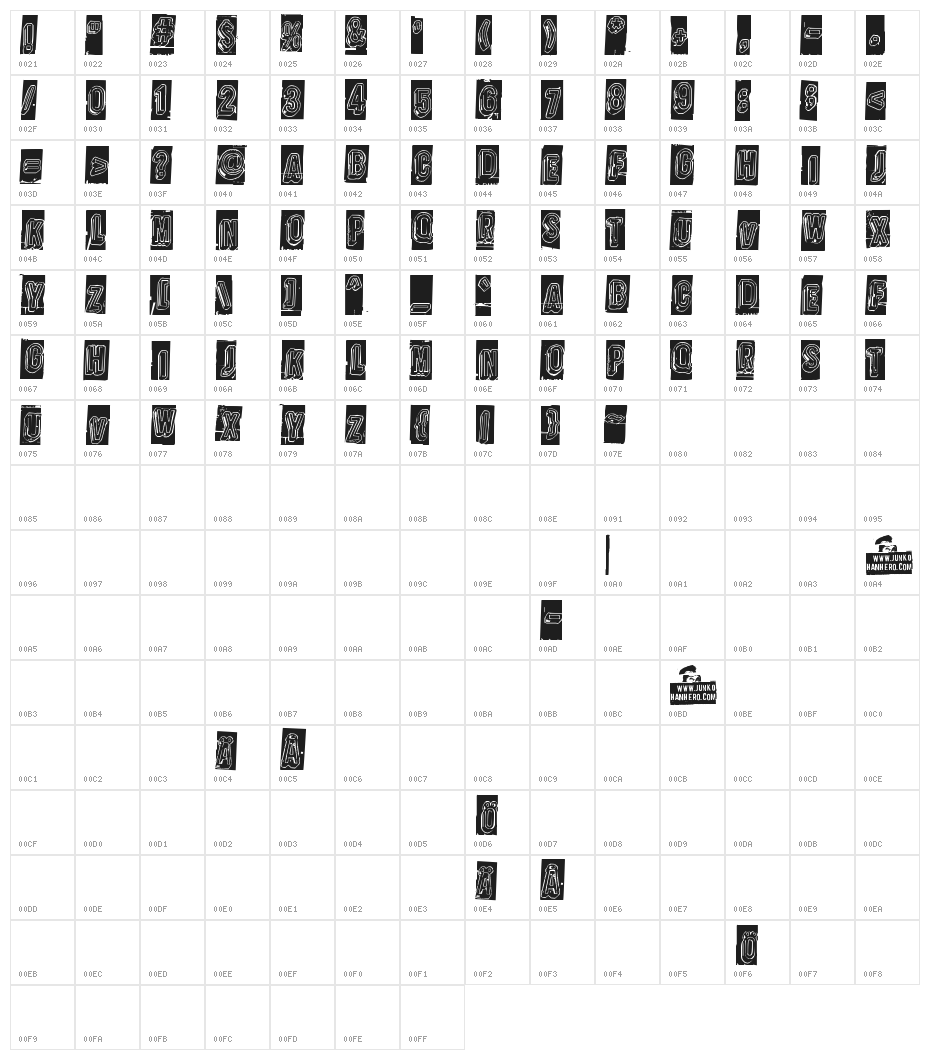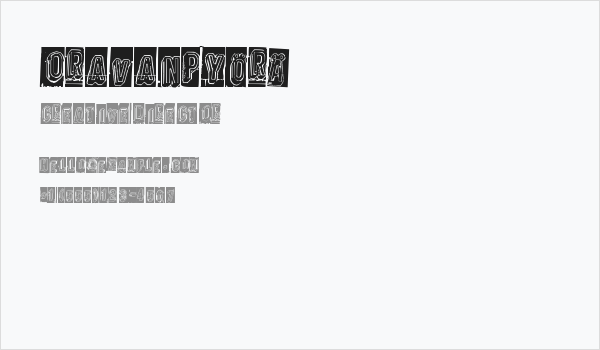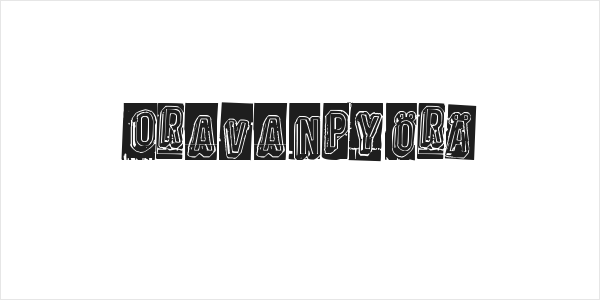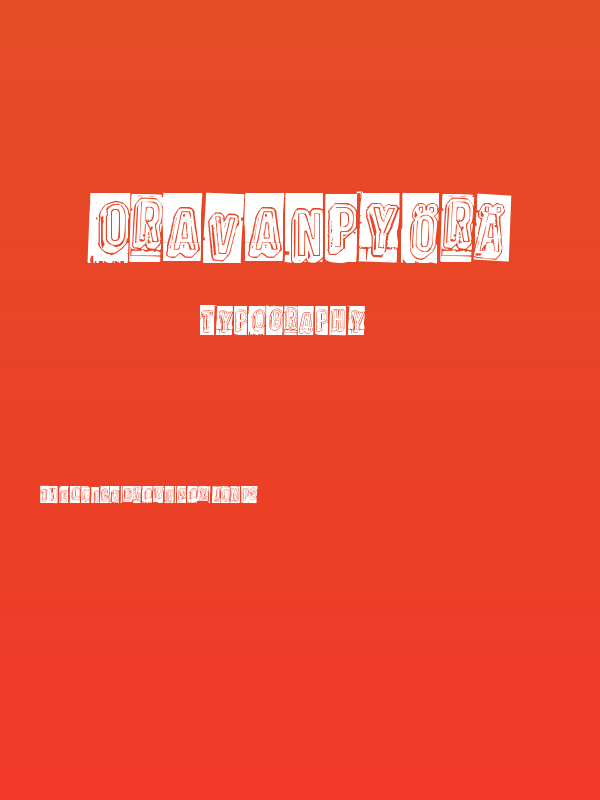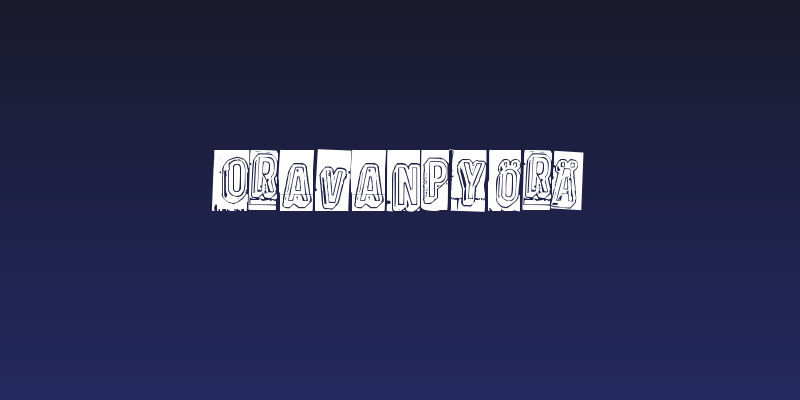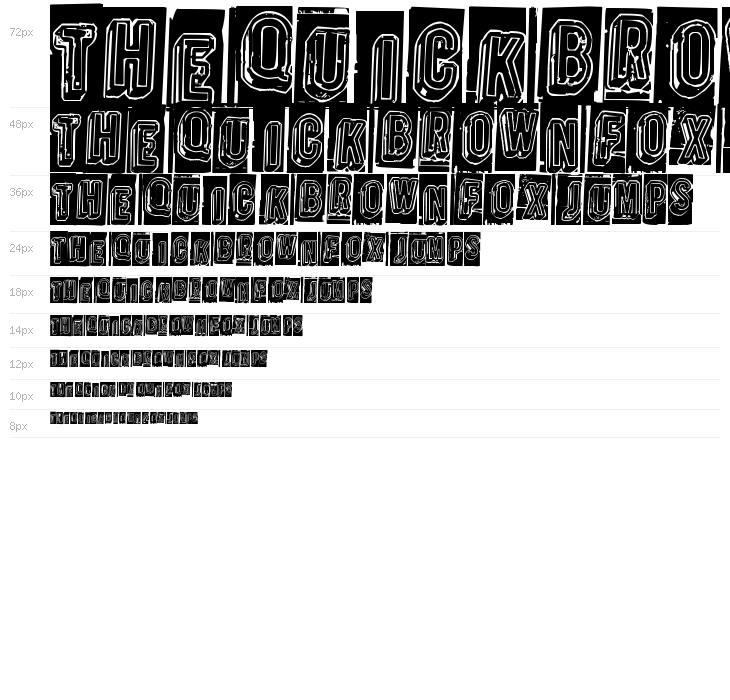
Oravanpyörä Font
Oravanpyörä Description
This font features a bold, outlined style with a slightly distressed texture, giving it a rugged and edgy appearance. The characters are uppercase and lowercase, with a consistent thickness in the strokes, creating a cohesive look. The numbers and special characters maintain the same aesthetic, ensuring uniformity across all glyphs. The font's unique style makes it stand out, ideal for projects that require a strong visual impact. Its distressed look adds a vintage or grunge feel, making it suitable for creative and artistic designs.
| Overall Style | Vintage, Grunge |
| Proposed Projects | Ideal for posters, album covers, branding, and any project needing a bold, artistic touch. |